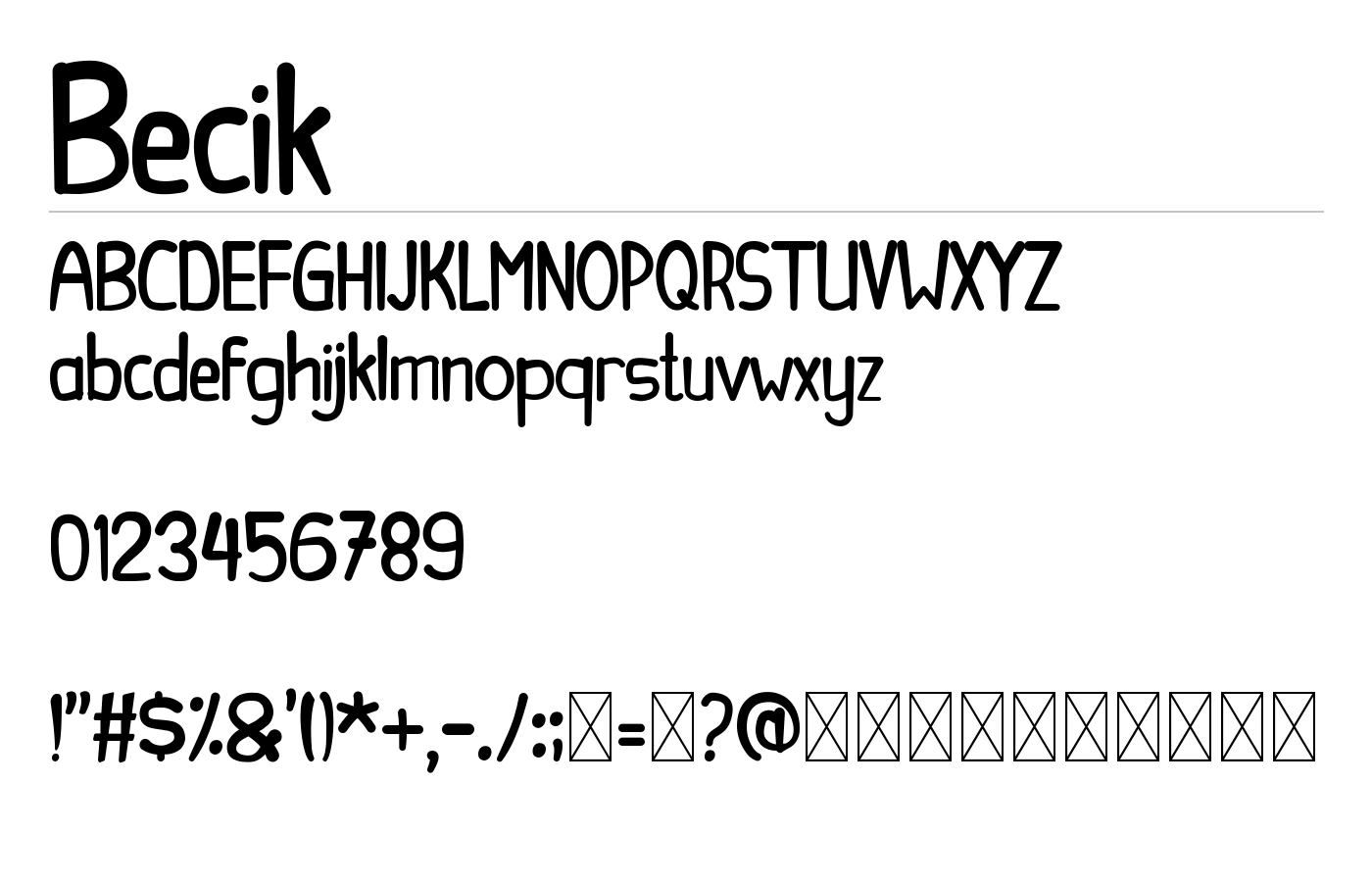
Becik is a playful, casual sans serif font with a hand-drawn feel, characterized by its uneven strokes and rounded edges that create a friendly and approachable vibe. Its quirky letterforms and moderate x-height make it well-suited for informal branding, children’s materials, and creative projects that seek a warm, personal touch. This font works best in headlines, logos, and packaging where a fun and inviting personality is desired.
Becik Font